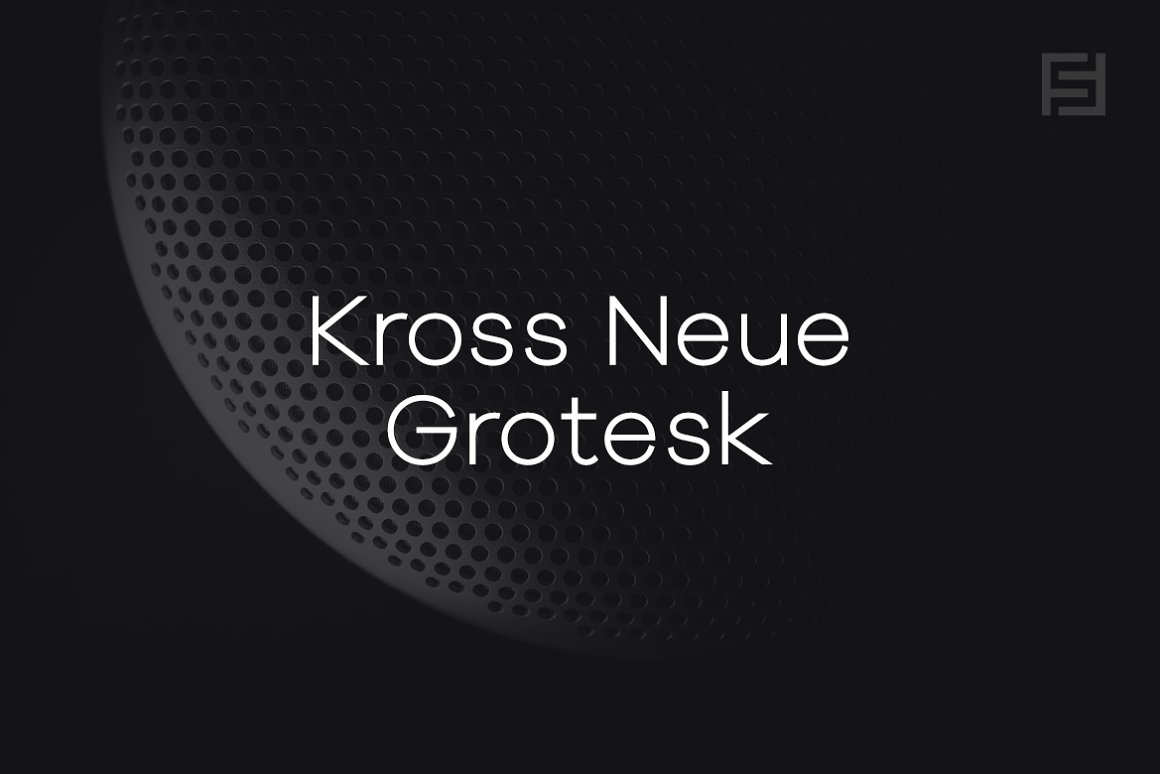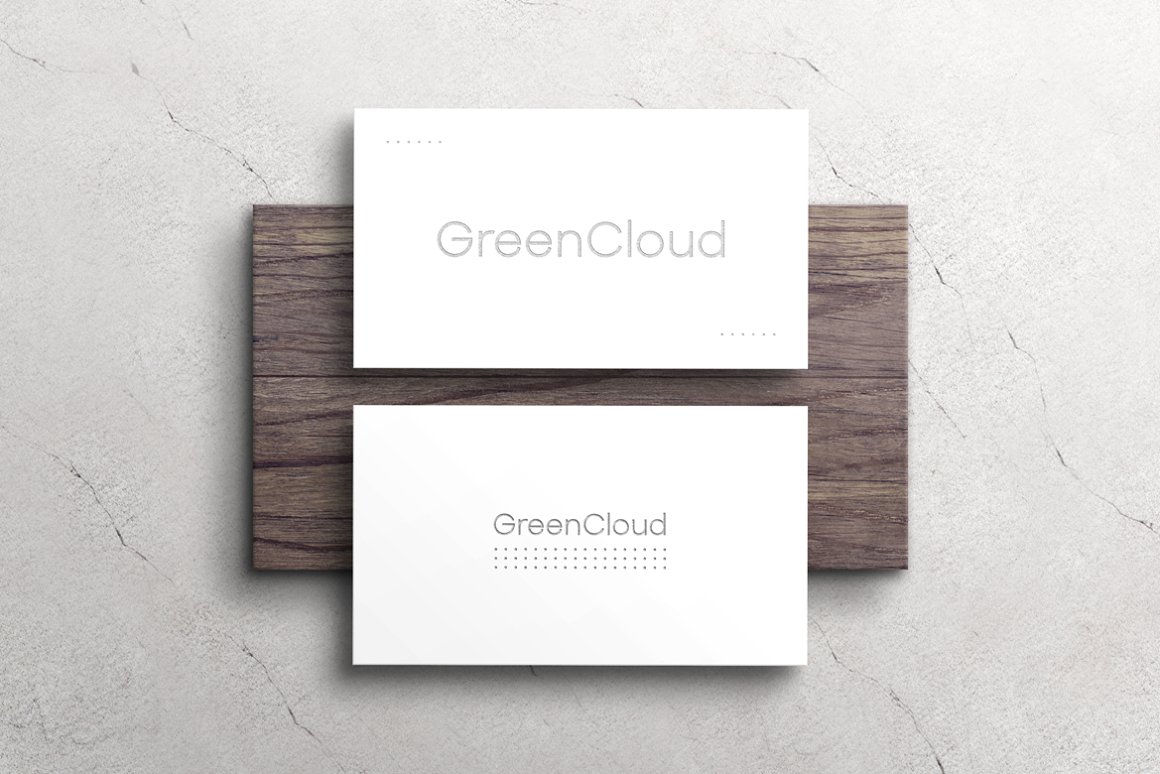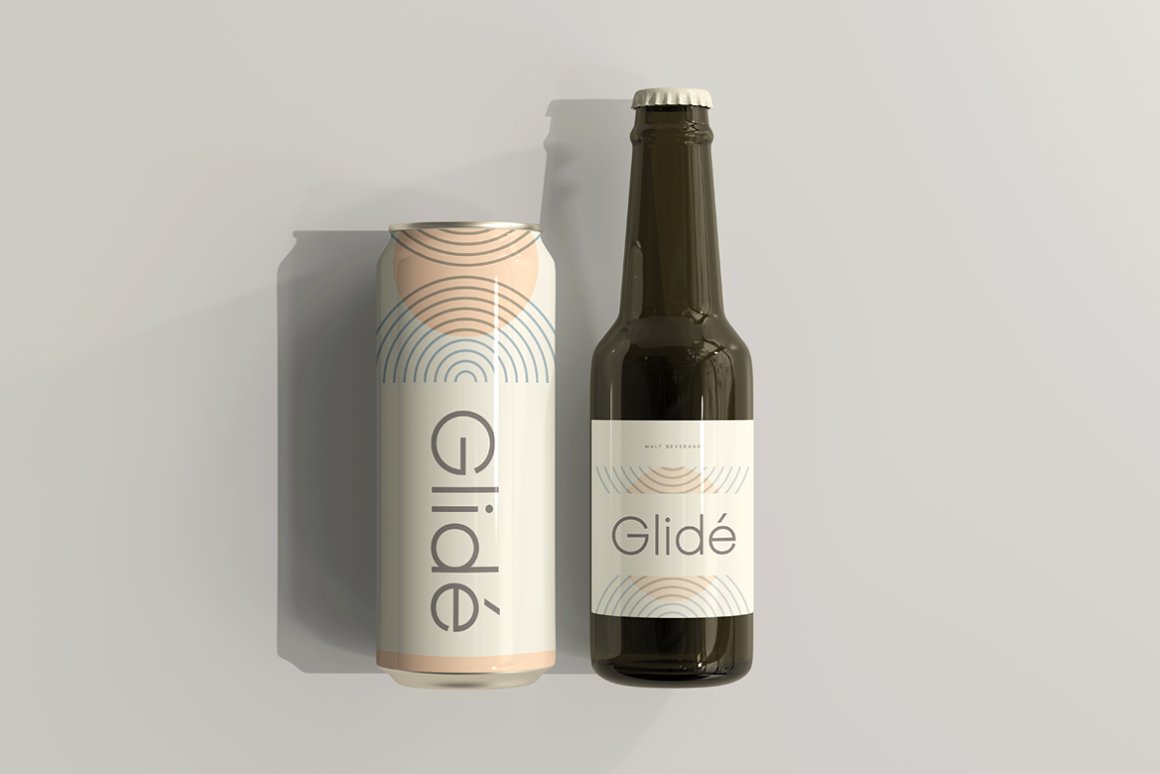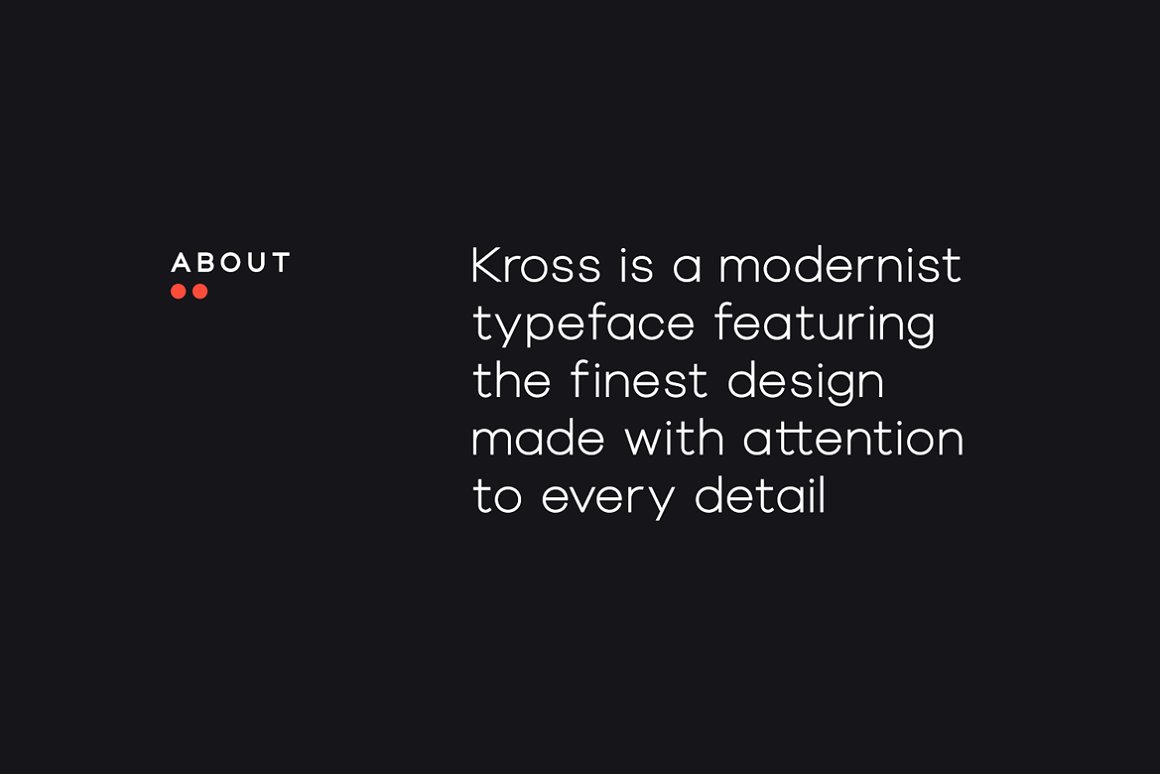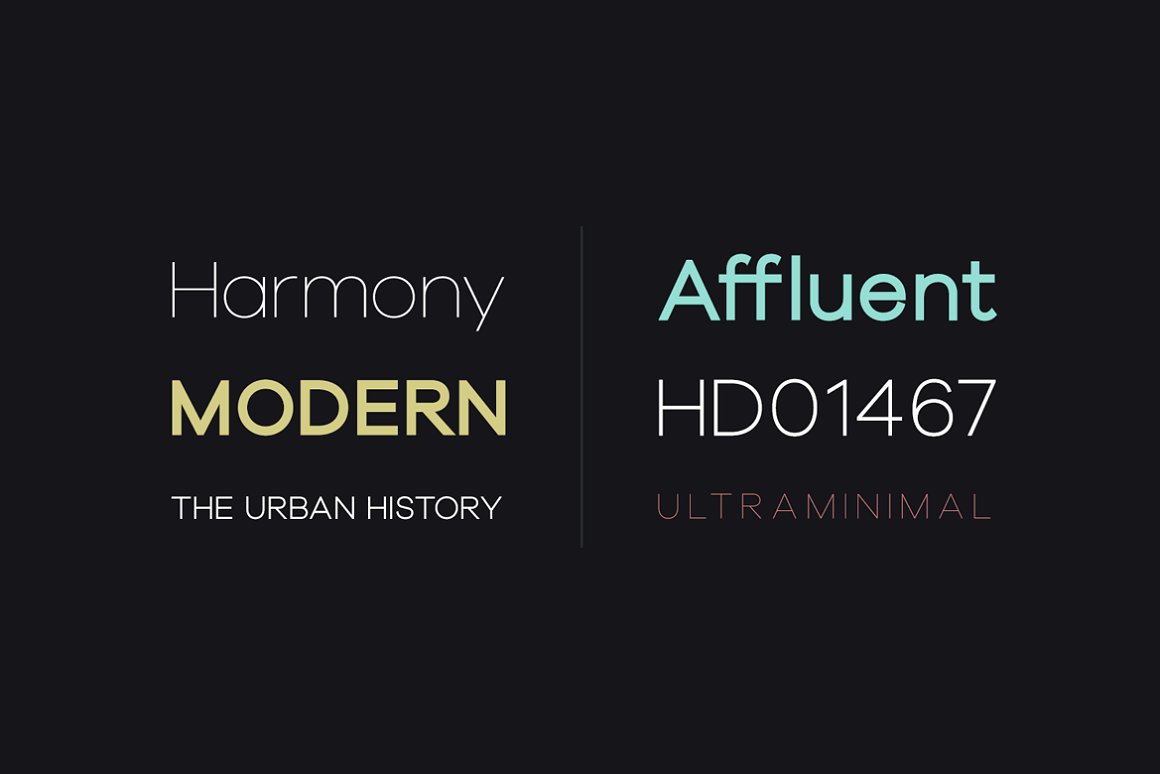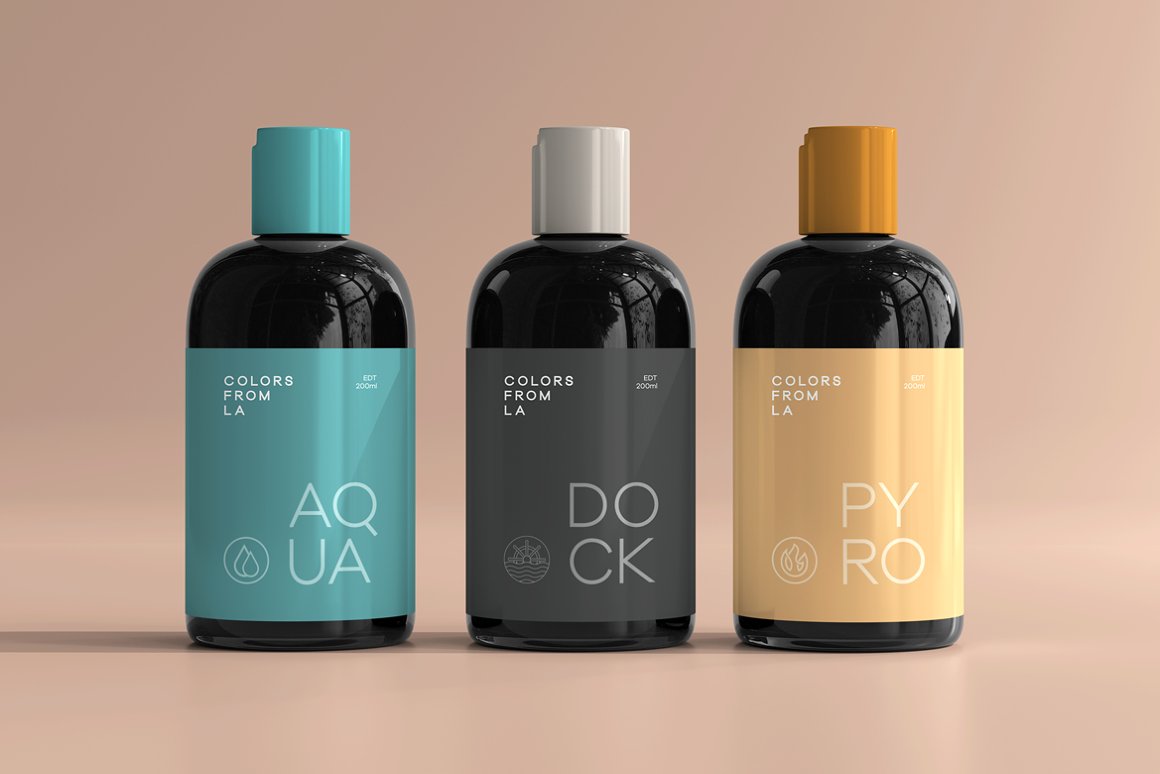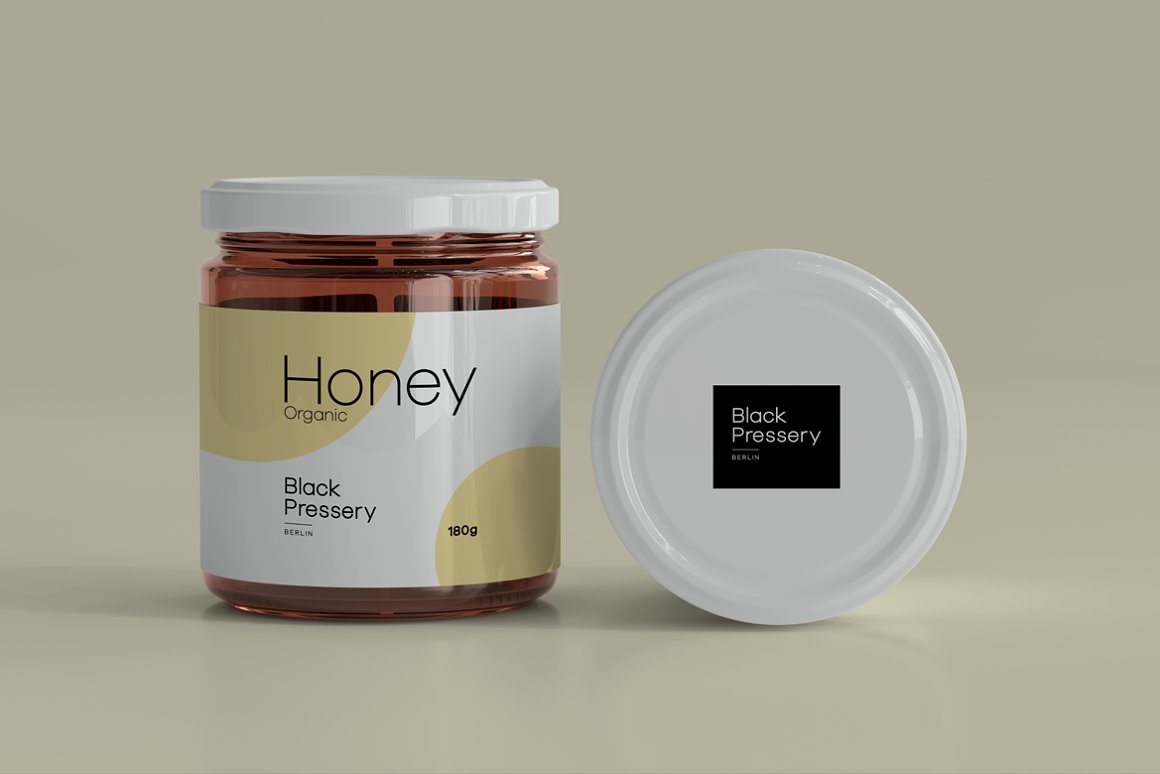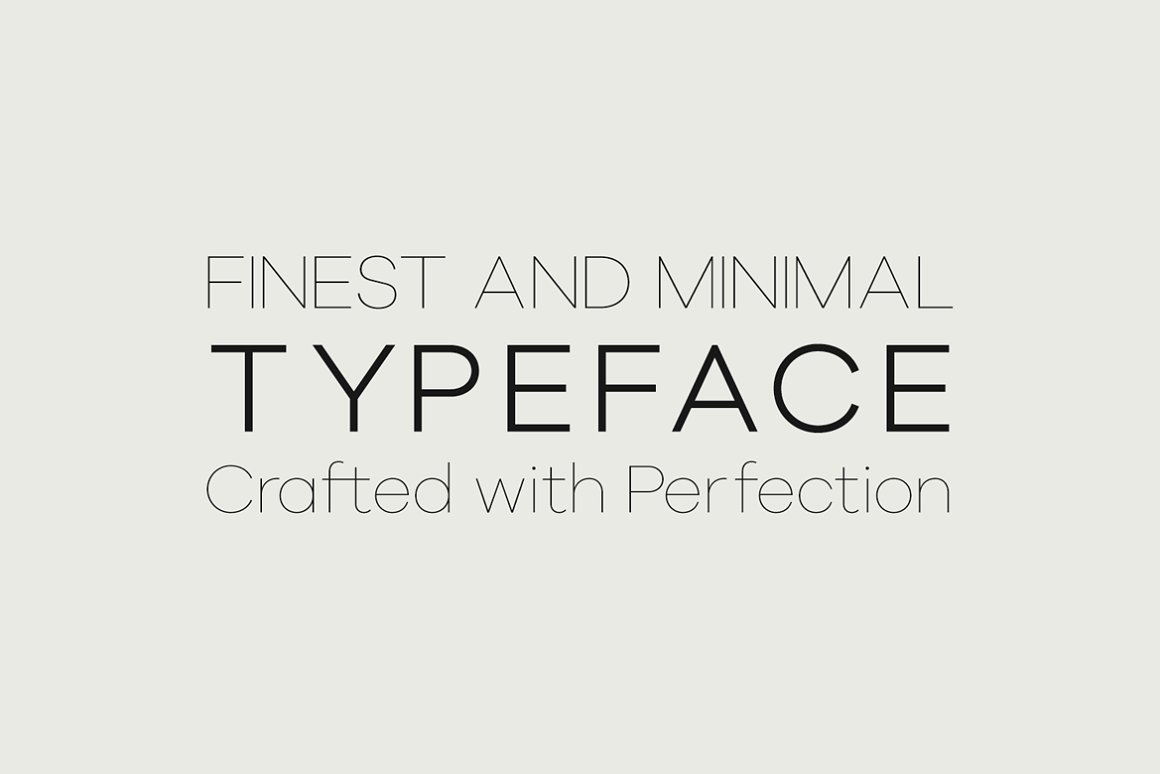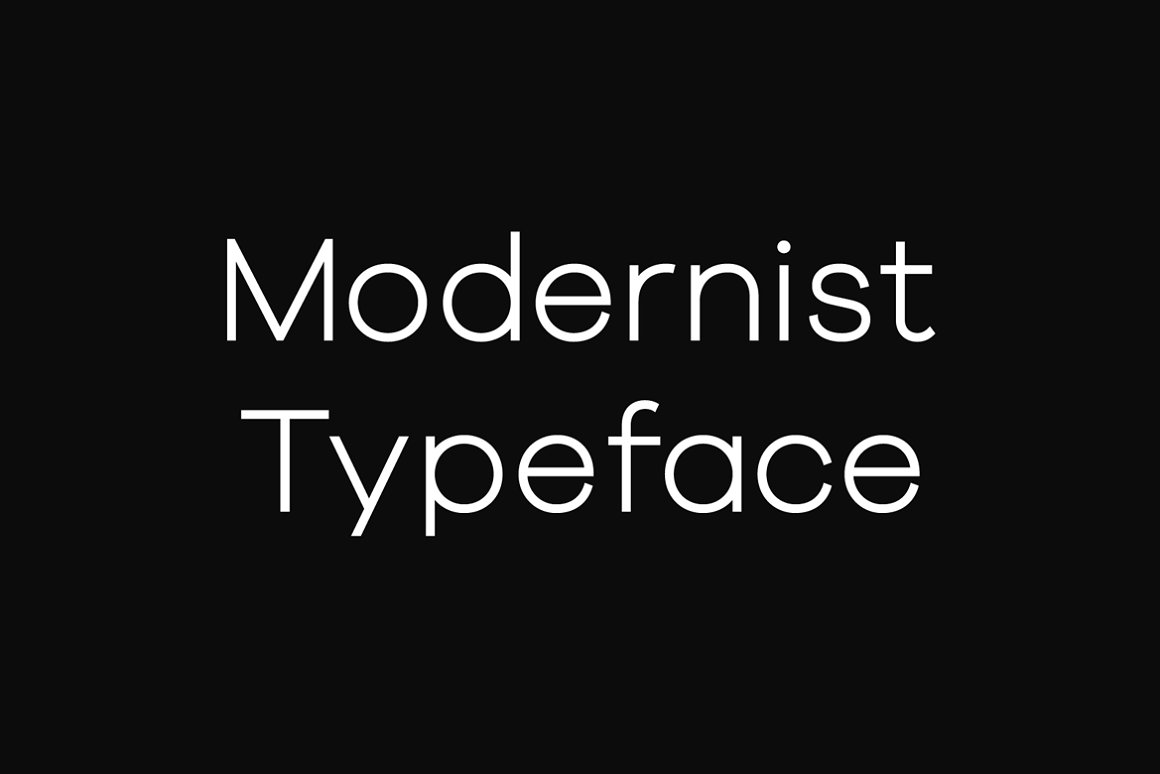
Kross Neue Grotesk is a modern grotesque sans-serif typeface family built with clarity, precision, and functional design.
Kross Neue Grotesk is a modern grotesque sans-serif typeface family built with clarity, precision, and functional design. Its balanced structure delivers versatile typography for branding systems, digital interfaces, editorial layouts, and professional applications.
Glyphs & Language Support
Kross Neue Grotesk includes extended Latin language support covering Western European, Central European, Baltic, Nordic and South Eastern European languages.